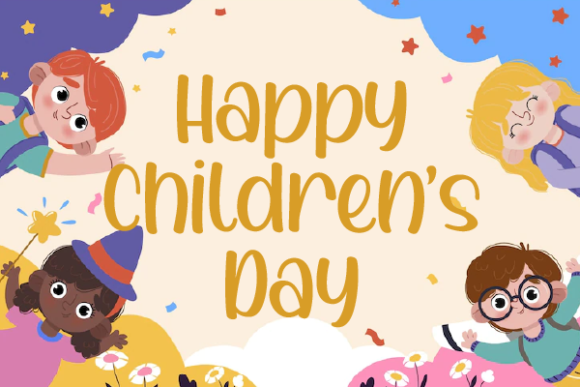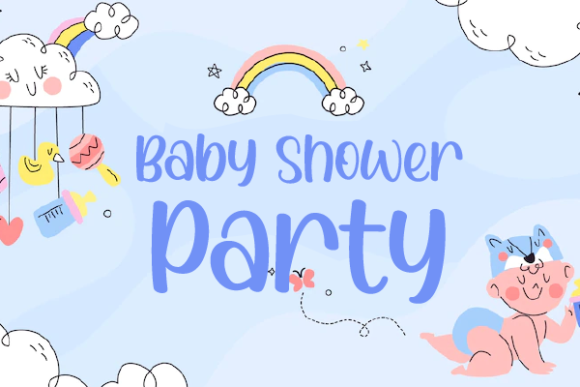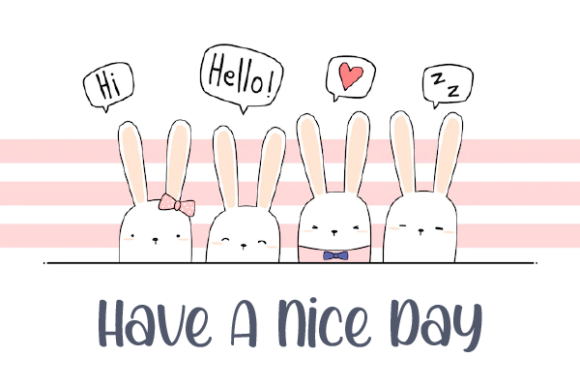
Rubben Kids Font
About Rubben Kids Font
“Rubben Kids” is a charming script font that brings a playful and lively vibe to your creative projects. With delightful characters that seem to dance along the baseline, this font is a wonderful addition to infuse charm and whimsy into your designs.
The playful nature of “Rubben Kids” is evident in its lively and dynamic characters. The font’s design adds a sense of movement and character to your text, making it suitable for a variety of creative applications. Whether used for children’s book covers, playful branding, or any other design projects, “Rubben Kids” adds a unique and engaging quality.
As you incorporate “Rubben Kids” into your designs, you’ll notice how it injects a playful spirit, making your creative ideas come to life with a distinct flair. The characters dancing along the baseline create a visual rhythm that adds energy and charm to your text.
Whether you’re working on posters, social media graphics, or any other project that requires a touch of playfulness, “Rubben Kids” is a font that stands out. Its ability to bring a lively and dynamic quality to your text makes it a valuable asset in creating visually appealing and engaging designs, especially for projects targeting a younger audience.
In summary, “Rubben Kids” is more than just a font; it’s a lovely script typeface that infuses your creative ideas with charm and playfulness. Whether used for children’s designs or other projects, let “Rubben Kids” be the font that adds a delightful and whimsical touch, making each project stand out with its unique character and visual appeal.